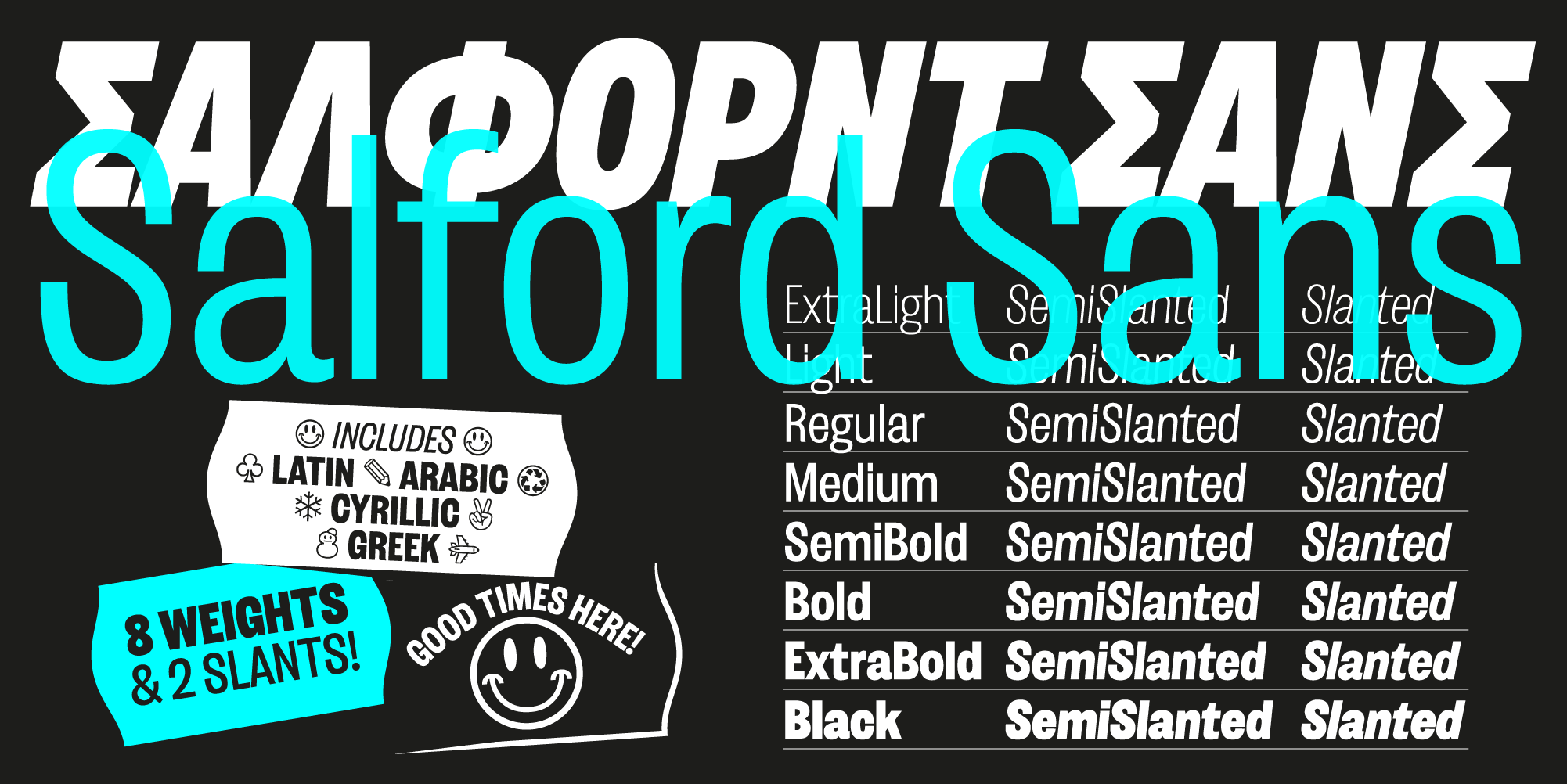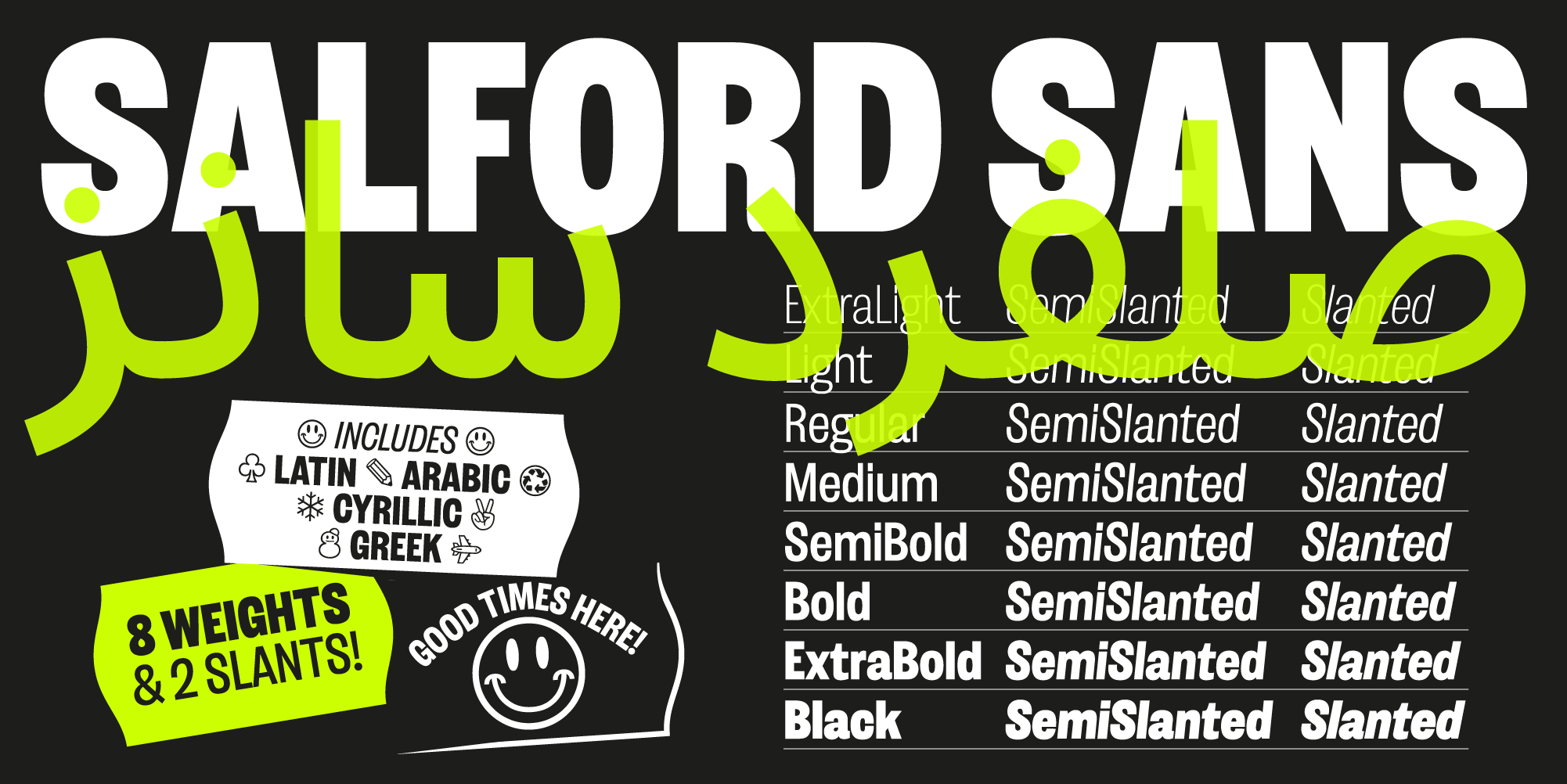
Lucas Czarnecki: If you remember a moment when you became interested in type design, when was it?
David Williams: I do remember! I was going through changes in my career and trying a few things. A buddy of mine had his own sign painting company, and I asked him if he had any work for me to help them out with. That was the first time I actually thought about typography and letterforms. Like most people, I didn’t really look at the letters, I just read the text.
So, I was helping him out for a while and he says, “you should go to college and learn how to use Illustrator, Photoshop, that kind of stuff. It’ll help you start doing some design for the signs.” I went down there and had a chat to one the admissions guys at the college, who told me that if you do the full course, instead of just this short module on software, it’ll get you into university, and you’ll be able to go and do graphic design degree. I was thinking about going back to university around that time, and I thought, I’m going to give this a go. My friend was probably not too happy, because he was expecting me to go there and just get some skills with the software. Instead, I came back and said, “Hey, I’m only going to be able to work two days a week with you now, because I’m going to college three days a week.” It kind of backfired on him. But I loved the course.
LC: Why did you love it, compared to your previous careers?
DW: Straight away, it was different. I’d done engineering- and science-based work before. I studied polymer science in college, and I’d never really considered art or design. In that college course, when they took us to galleries and said, “Analyze the art and design. We want you to write an essay.” I thought, “This is crazy. This isn’t work. It’s just fun.”
It was a total change for me, from being somebody who thought about machinery, engineering, physics, polymers, and chemistry to somebody who was becoming passionate about the visual arts. It filled me with joy to be around that environment and to be thinking about things in a completely different way.
After I finished that course, I went to university to get a graphic design degree and loved every minute. From then on, I found myself drawn to typography. I think it was the engineering background—the sort of mechanical and scientific background—it drew me towards the systematized nature of typography. It sits in between art and technical drawing, doesn’t it? I was no fine artist... I couldn’t draw a figure painting or still life. I didn’t have those techniques. But I felt comfortable with fonts and the mechanical kind of nature of them.
Nobody else in the graphic design bachelor’s course gave a damn about making typefaces. Even in the lectures, we didn’t really have specific type training. So, it wasn’t until I discovered Reading University that I found out what type was all about.
LC: How did you discover Reading?
DW: When I was doing my Bachelor’s, I kept thinking about type, and I would shoehorn typefaces into every single project. If I could make a book—saddle stitch or perfect bound—by hand, draw my own typeface, put it in, and do some editorial layouts... I was happy.
Then for my final project I felt a bit lost and didn’t know what to do. I was about to just make another typeface when I discovered a dissertation written by Aoife Mooney (who graduated from Reading in 2010). She totally blew my mind. In school, it isn’t very technical or rigorous; it’s not like Reading. When I read her paper, I thought, “Wow, I didn’t know you could write like this about typography.” She interwove ideas of philosophy, engineering, architecture, and human history. She touches on so many different things and is so articulate. It was real academic work. I looked and the paper said, “Reading University.” I thought straight away, “Yeah, this is where I need to go.” I changed my whole final project: I made a typeface and wrote a dissertation about typeface design, just to send to Reading and try to convince them that I deserved a place. I made this terrible typeface that no one will ever see. Cast it into the darkness.
LC: But it was enough? Tell me about your time at Reading.
DW: That’s funny. Yes! I sent it in and got a reply from Gerry Leonidas saying I had a place. My time at Reading was incredible. You know, the first time I was in a room with all these people, it made me feel very humble. They were so smart and so well read... they’re such great artists and designers, and they’re so passionate. They were from all these places where I’ve never met people from, and I was constantly learning from them. Whether it was learning about their literary culture, their visual culture, or a region’s cooking... They all brought it into the studio. I loved it.
LC: Did you get to work at all with Fiona Ross?
DW: Yes, Fiona introduced us to Arabic scripts. She covered the history of Linotype, the Monotype drawing office, and her own work with various scripts. She’s so active with research projects as well. Fiona was a big influence for me.
Manchester Type is a type foundry with a global view of typography. Their type shows a love for historical references and a desire to provide contemporary functionality.
Kathleen Crawford, a screen-casting agency in the UK, uses Salford Sans in their company branding and website.
LC: Going back a little bit... What is the story behind your first typeface? Was it that final school project, or had you done any earlier?
DW: I had messed around with some bits of type and drawn some letterforms. That project was my first typeface, though. It was a terrible sans serif... Sort of like a worse Helvetica. You know, it is amazing just how difficult it is to learn typeface design. When I was an undergrad, we didn’t have any books about it. I was kind of fumbling around in the dark. I made that horrible sans serif for my project and application. I probably won’t show that to anybody ever. I hope Gerry doesn’t either!